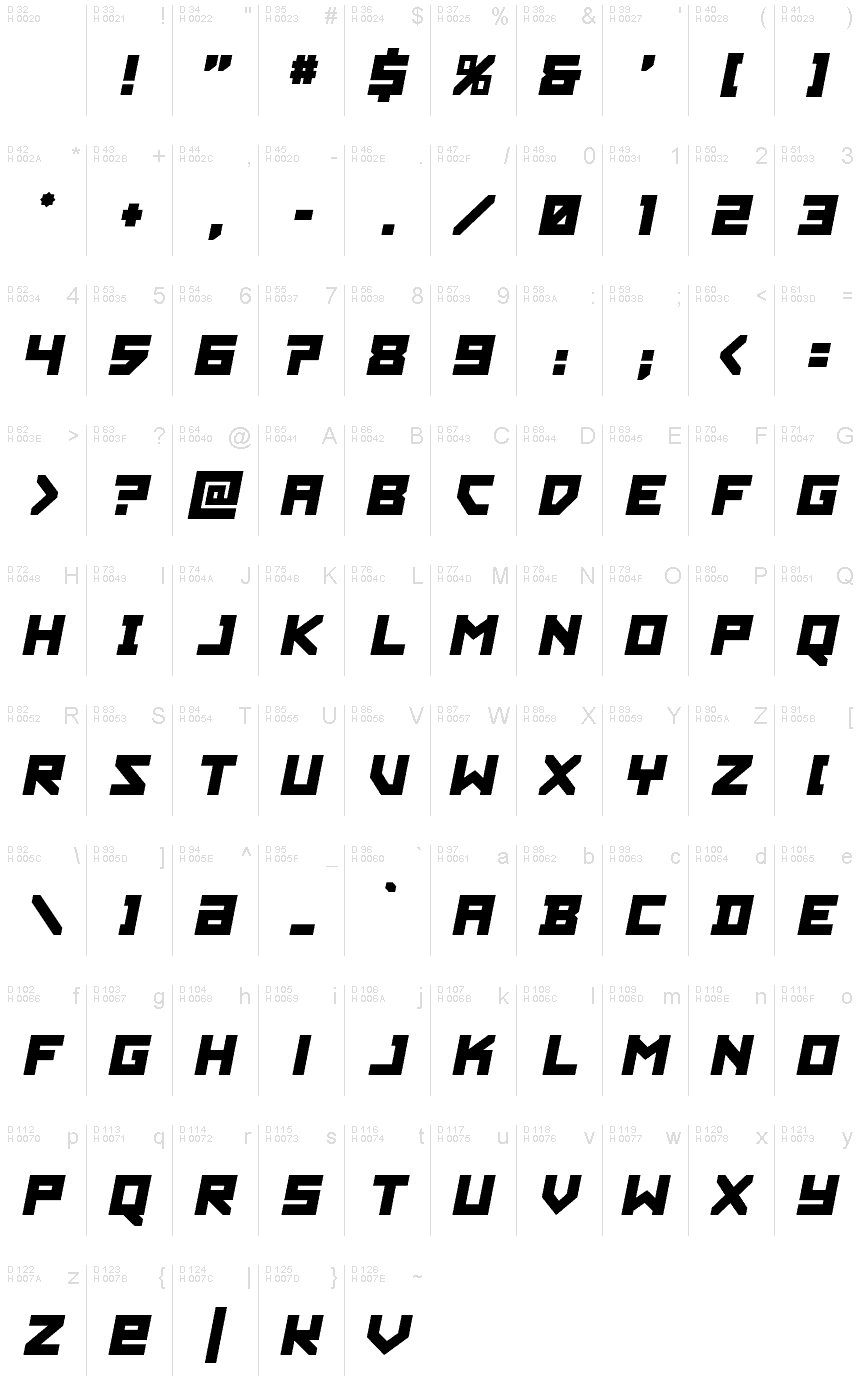
Hibernal Sentry Spaced Italic
The new Hibernal Sentry Font in a special italic style with spaced-out characters offers an exciting new perspective on technology, futuristic design, and techno. All in one font that you can add to your collection immediately. It brings an intense outlook on the future with its edgy, bold style and strong visual presence, with sharp, heavy characters. And you don’t need to worry about being able to use it in your personal projects; this font is a freebie created and shared by Iconian Fonts.
You can use this font in any branding project, from business cards and posters to logos and labels, as well as in any headline or typographic display presentation and posters, especially if the topic is futuristic, tech, gaming, and science. And with its unique presence and selection of glyphs, you can even add a touch of techno to your music album and movie poster designs.